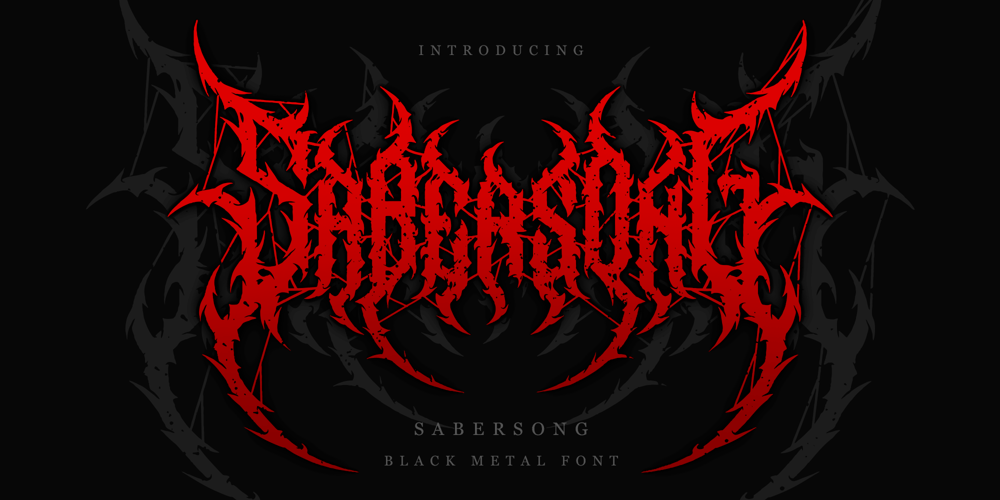
Sabersong Blackmetal Font Family was designed by Achmad Hanif Ulinuha and published by Madhaline Studio. Sabersong Blackmetal contains 2 styles and family package options. We RECOMMEND that you purchase both of these fonts to get the look like in the font preview image.Tutorials Photoshop: https://youtu.be/qfUNZr0m4n8 Procreate: https://youtu.be/R_5O_pfPBIY Sabersong is a carefully crafted font, which features a very heavy black metal feel. Sabersong suitable for metal band logos, merchandise, clothing, apparel, or anything that needs a black metal feel.